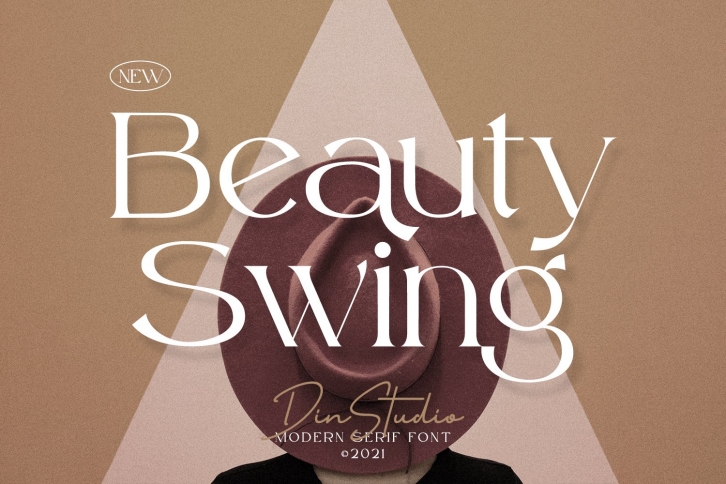
Beauty Swing is a trendy and unique font with an authentic style. It was designed by Din Studio and it's a great choice for creative people who need such a font. It was released on February 13, 2021 and the file size is 15.43 MB. Beauty Swing will add an organic vibe to any design idea!